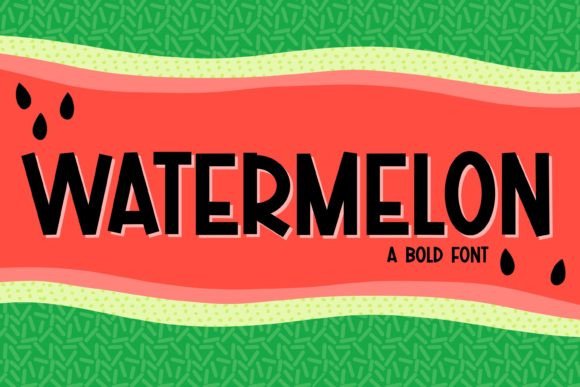
Introducing Watermelon Font, the perfect sans serif font for your next bold T-shirt project! Created by the esteemed Kitaleigh LLC, Watermelon Font boasts a unique blend of thickness and playfulness that sets it apart from other fonts in its category.
Are you tired of boring, overused fonts that fail to capture your audience's attention? With Watermelon Font, you can say goodbye to generic typography and hello to a fun and engaging design that's sure to turn heads. This font's bold lines and playful curves make it the ideal choice for a wide range of projects, from invitations to marketing materials and everything in between.
If you're looking to add some sweetness to your next project, Watermelon Font is the perfect choice. Its eye-catching design and versatile applications make it the go-to font for anyone looking to make a statement. Whether you're designing a bold T-shirt, a catchy logo, or a playful brand identity, Watermelon Font has everything you need to bring your vision to life.